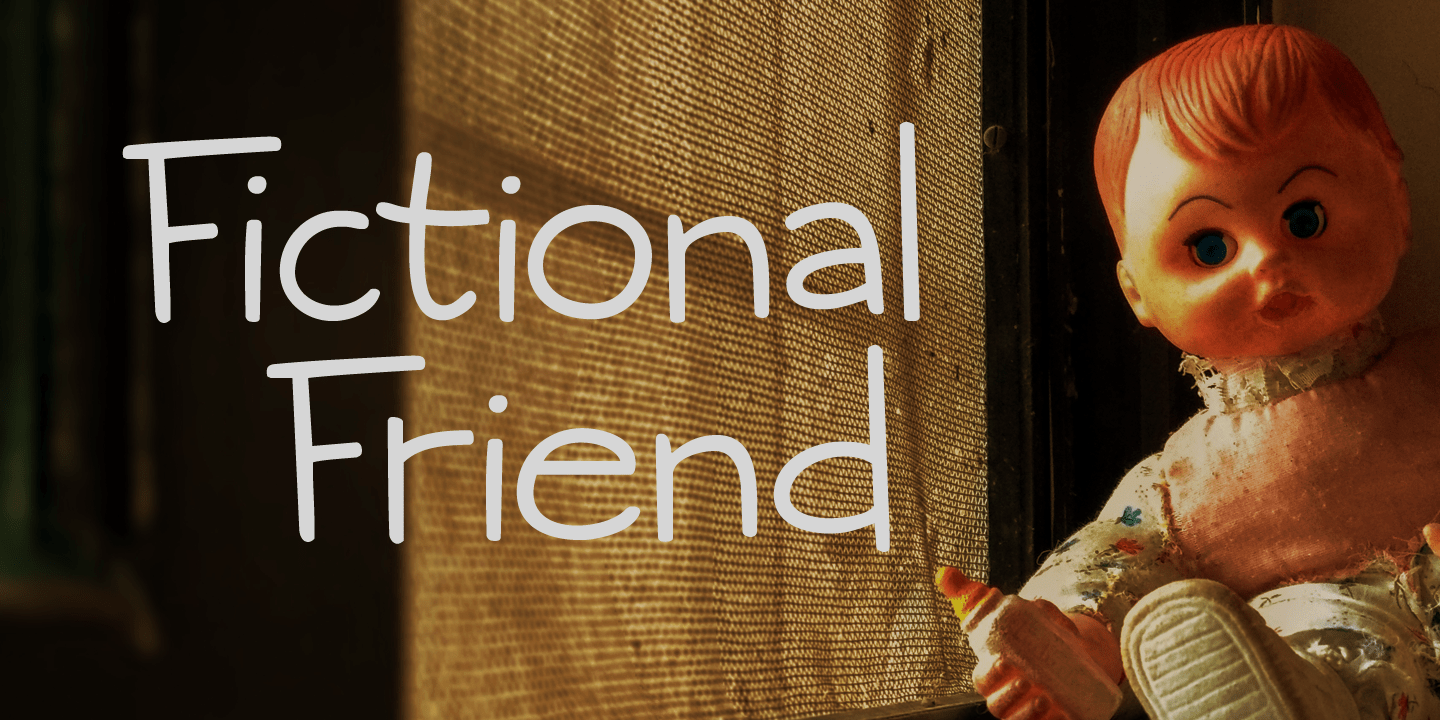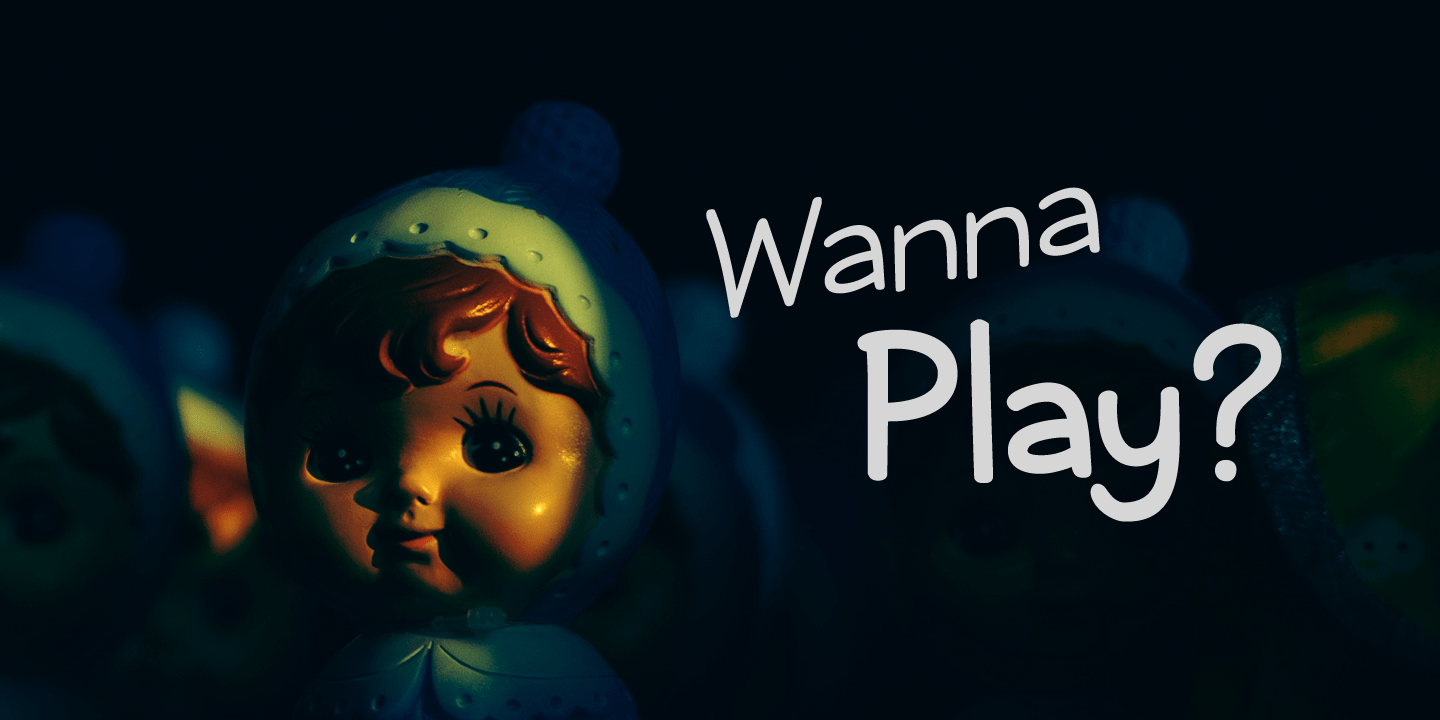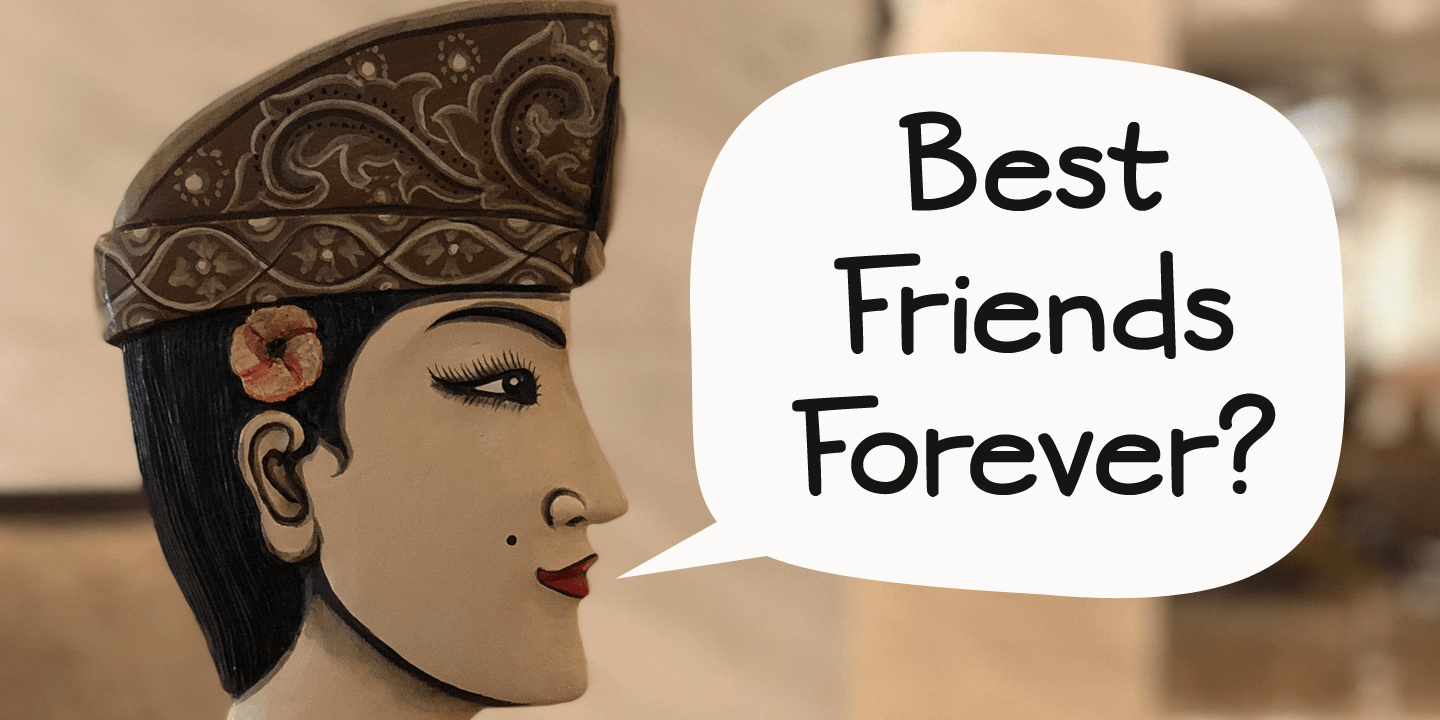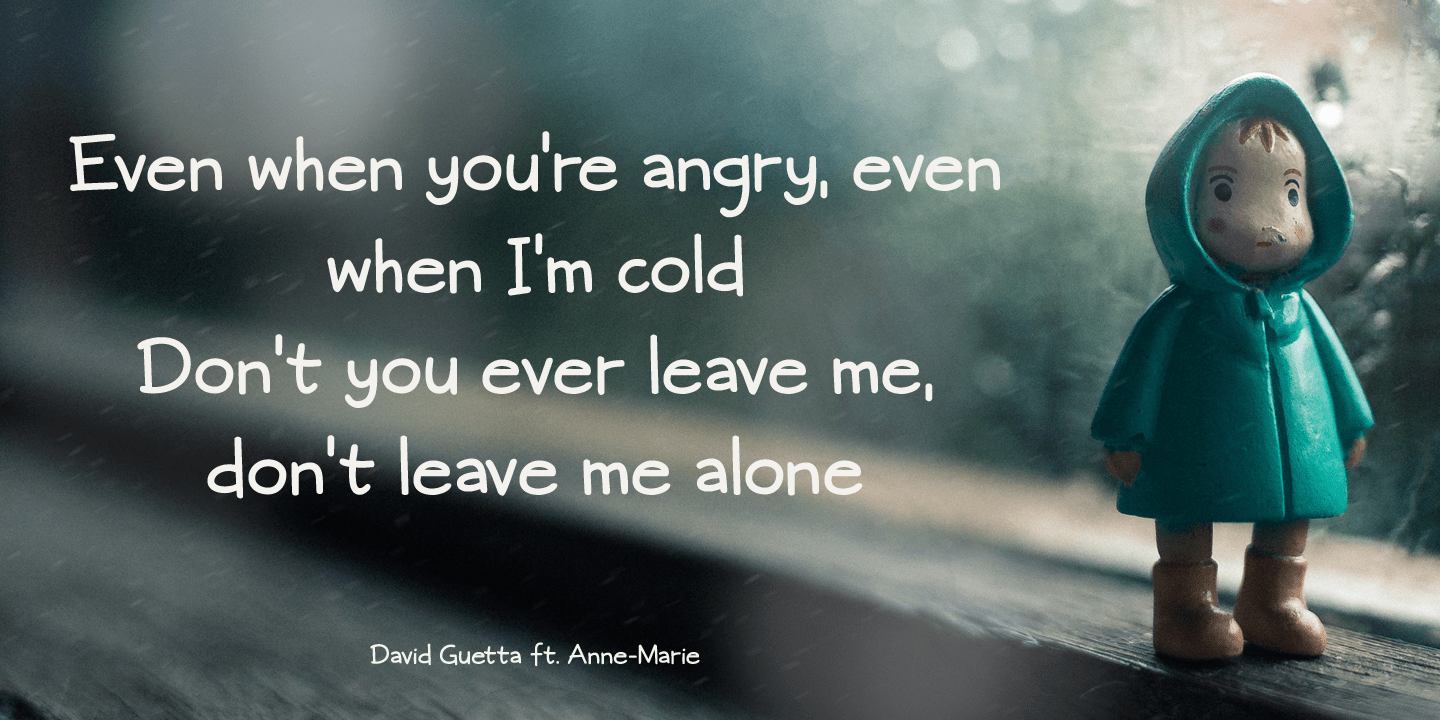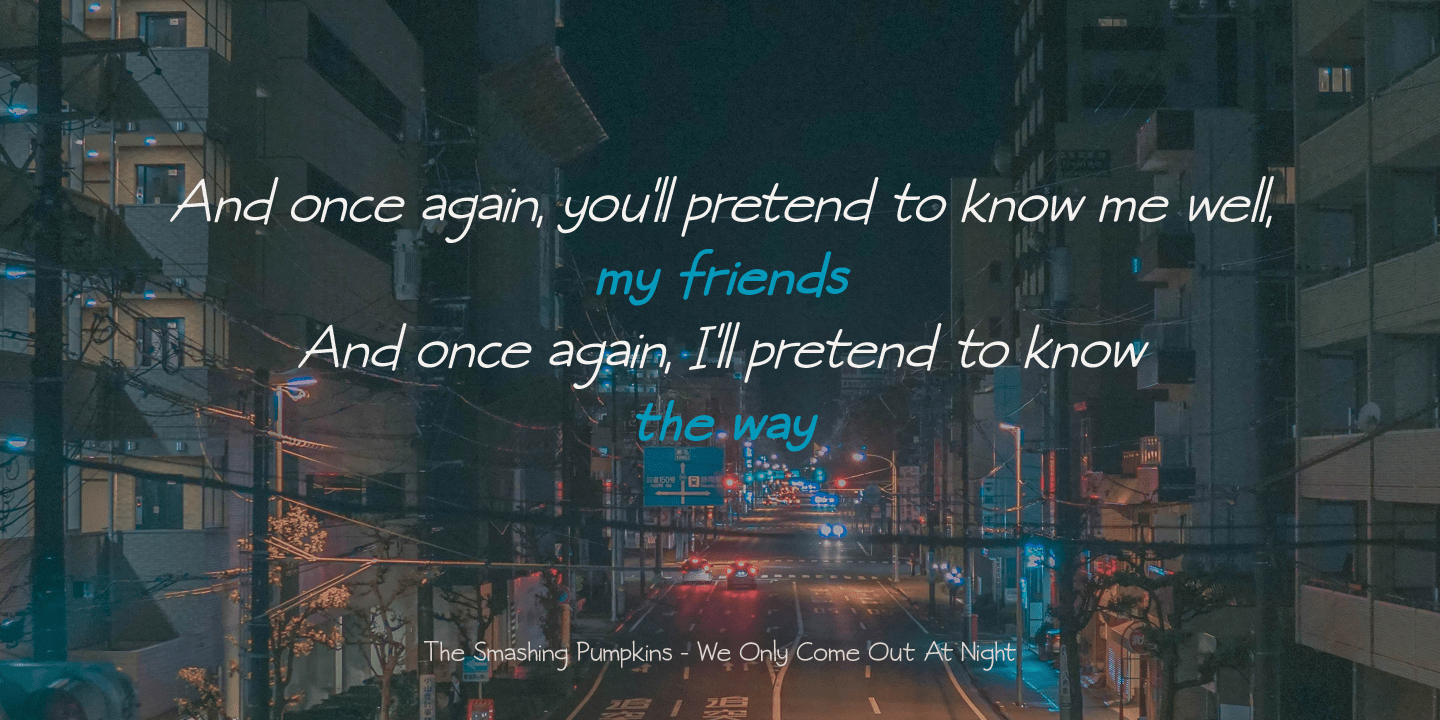
Fictional Friend
About Fictional Friend
No, I don\’t have a fictional friend, nor an imaginary one. Never had! But that name popped up in my head and I used it for this font. Fictional Friend font is a handwritten ?comic book? font – sort of. It\’s very legible, soft and rounded and comes with…